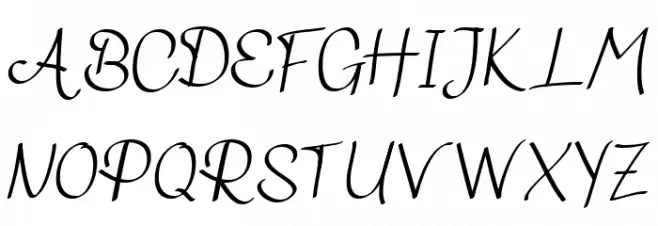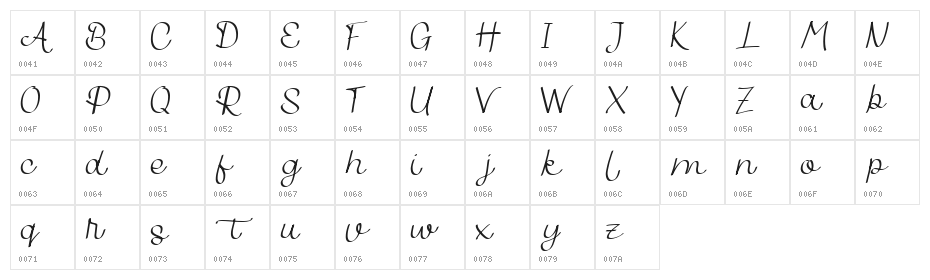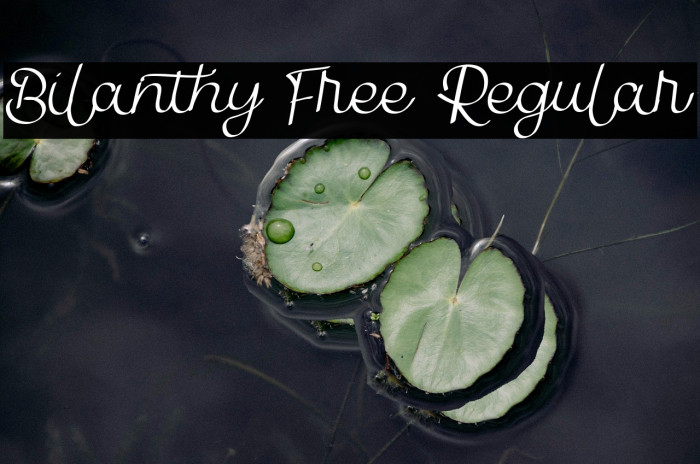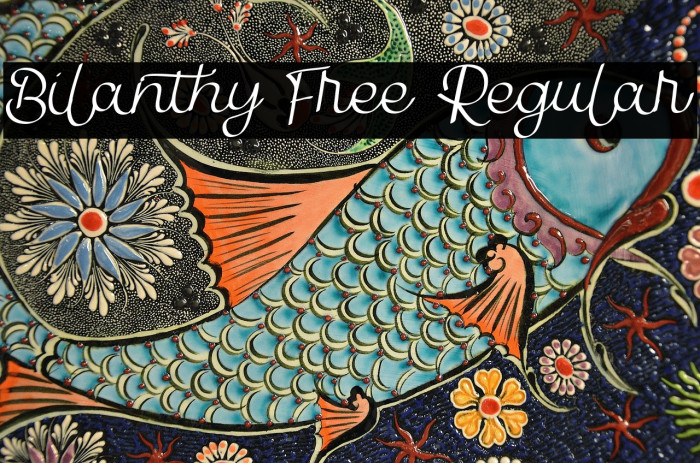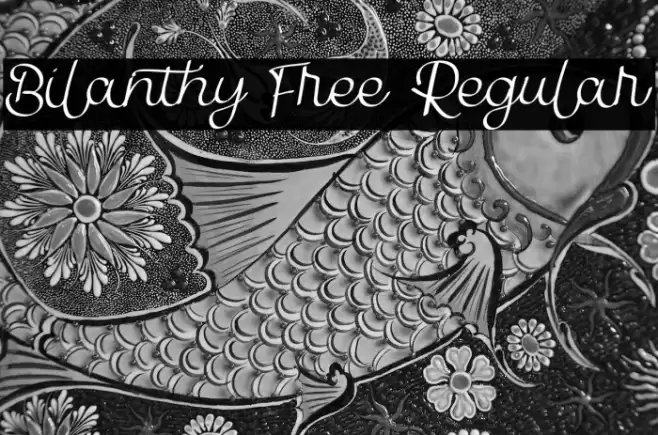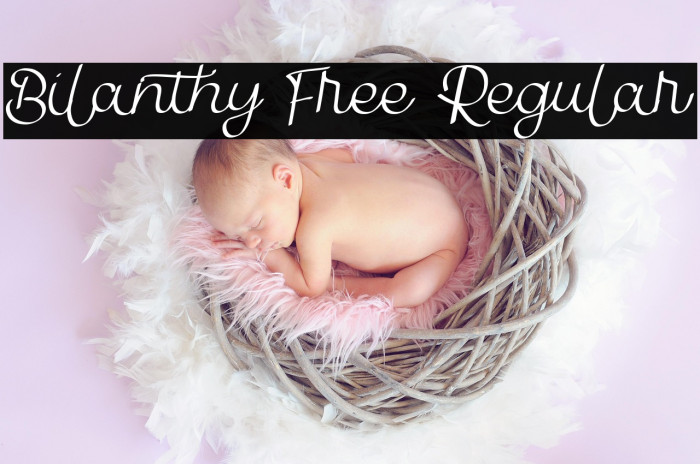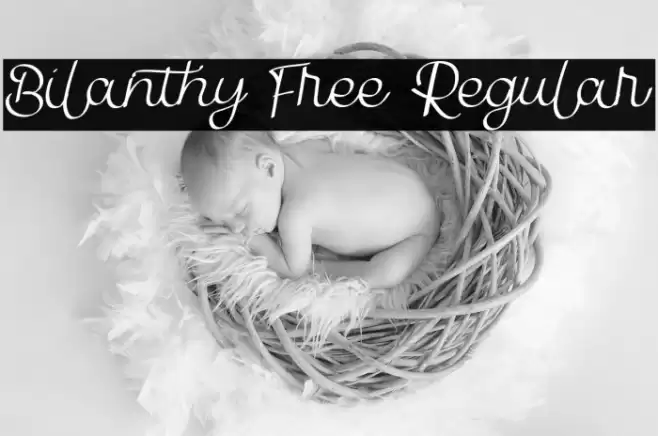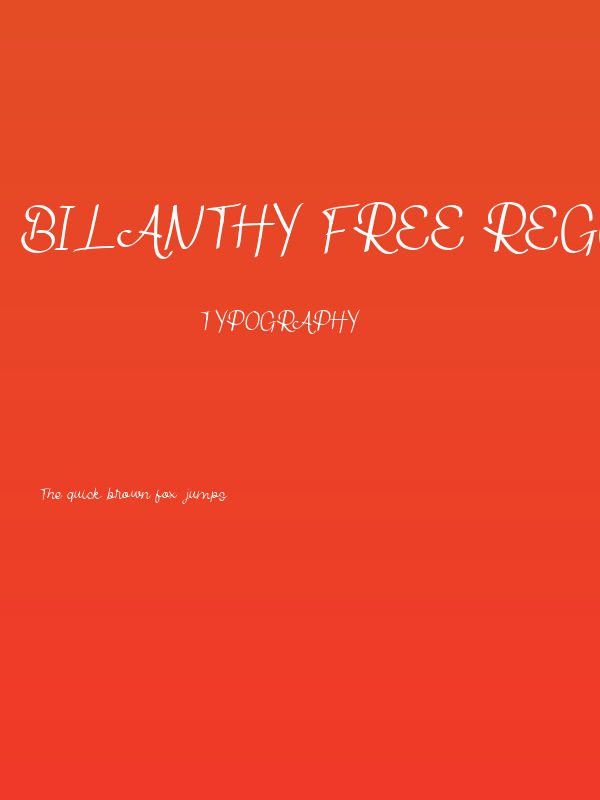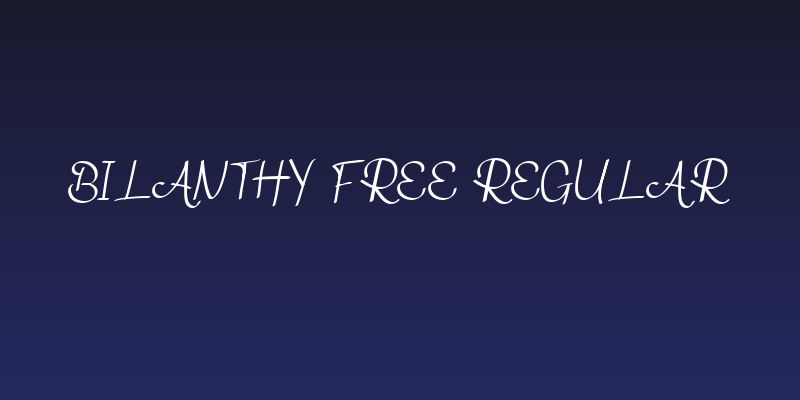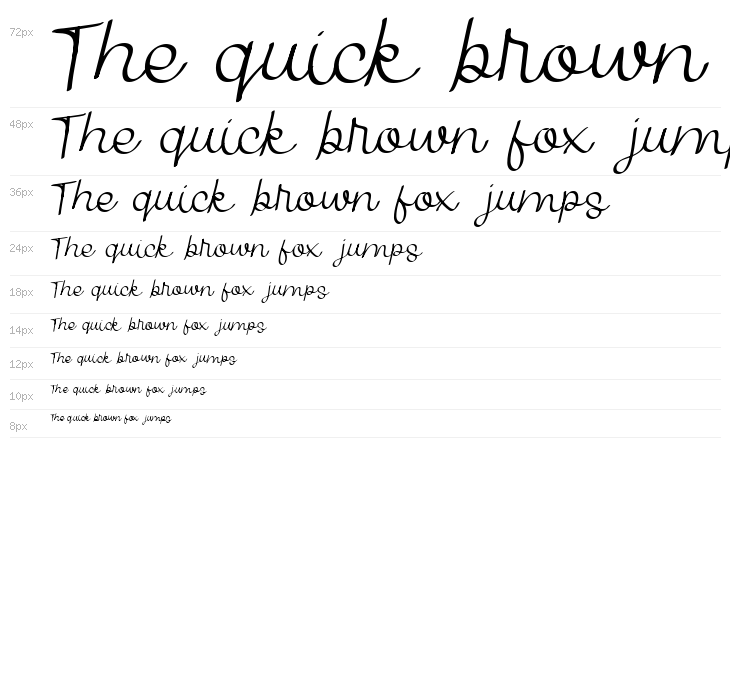
Bilanthy Free Regular Font
Bilanthy Free Regular Description
This elegant script font features a flowing, cursive style with smooth, connected strokes that give it a handwritten appearance. The uppercase letters are characterized by their graceful loops and curves, while the lowercase letters maintain a consistent flow, enhancing the font's readability. The font's design is both sophisticated and approachable, making it suitable for a variety of applications. The characters are well-spaced, providing a balanced and harmonious look. The font's overall aesthetic is modern yet timeless, with a touch of artistic flair that adds personality to any project.